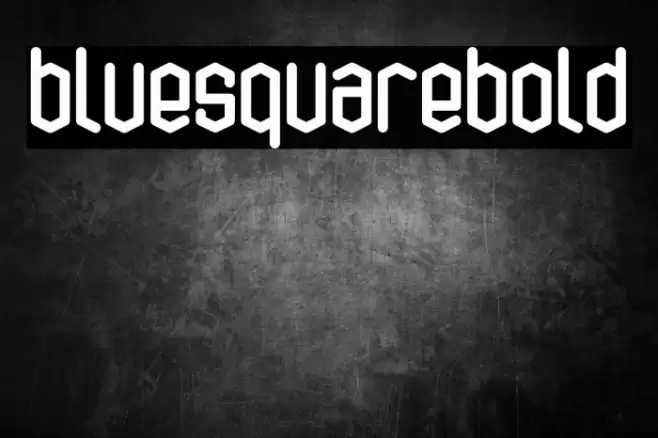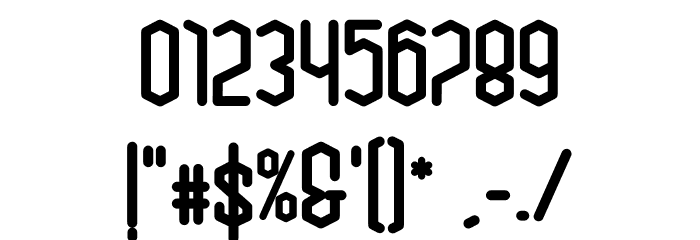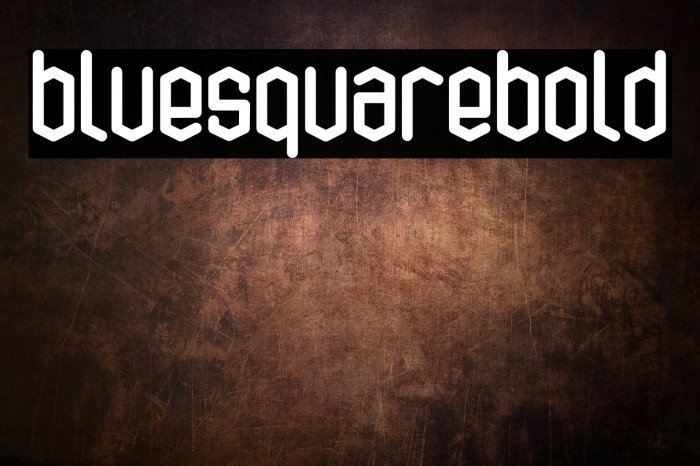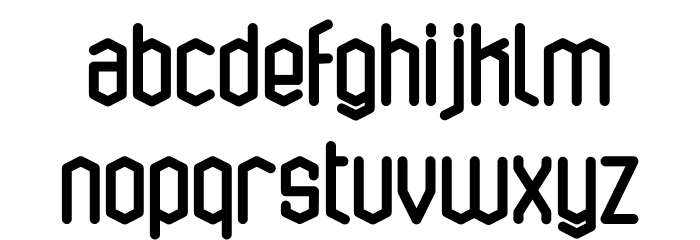
bluesquarebold Font
bluesquarebold Description
This font features a bold, geometric design with a distinct blocky appearance. The characters are constructed with straight lines and sharp angles, giving it a modern and industrial feel. The uppercase and lowercase letters maintain a consistent height, contributing to a uniform look. The numerals and special characters follow the same design principles, ensuring cohesion across all glyphs. This font's boldness and unique style make it stand out, suitable for projects that require a strong visual impact.
A bold, geometric font with a modern, industrial style from Uncategorized fonts.
- Proposed Projects: Ideal for branding, posters, headlines, and any design needing a strong, modern aesthetic.